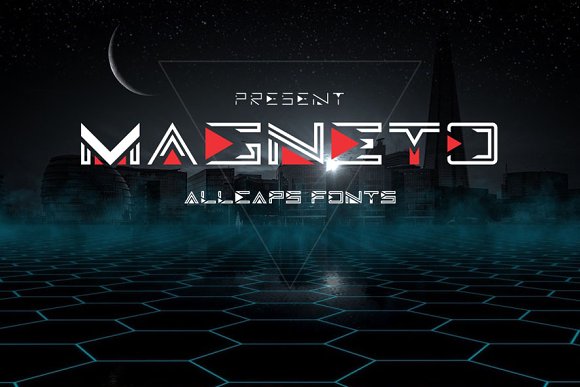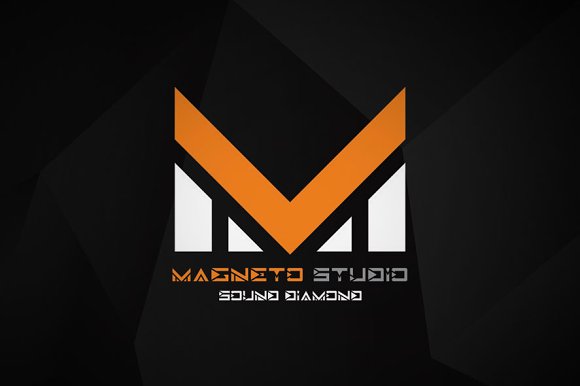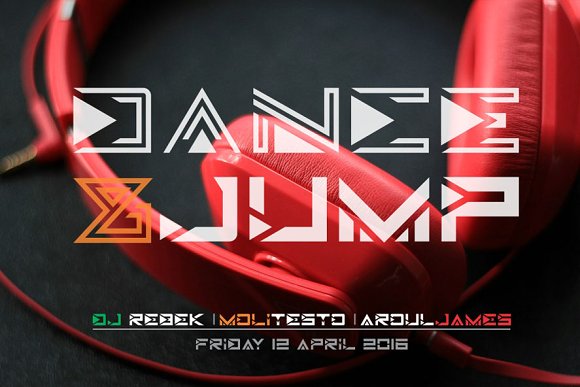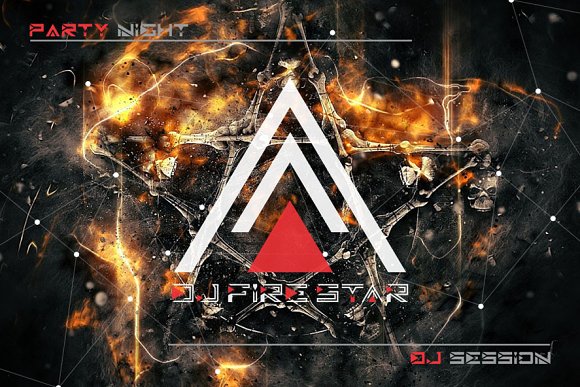
Magneto Font
About the Magneto Font
Make a bold statement with Magneto Font, a powerful and memorable font. Magneto is a stylish futuristic font that comes in 4 stunning variations:
Magneto Regular
Magneto Line
Magneto Special Line
Magneto Thin
Magneto excels in headline use, particularly for science fiction, technology, or gaming projects. Its bold, futuristic aesthetic also makes it ideal for branding applications requiring a strong, modern feel, such as logos or short taglines. Avoid using Magneto for body text or long paragraphs; its strong character reduces readability in extended formats. UI applications should also be approached cautiously.
The sharp geometry of Magneto pairs well with clean sans-serif fonts like Open Sans or Lato for a balanced contrast. For a more playful feel, consider pairing it with a rounded sans-serif such as Montserrat. A touch of elegance can be achieved by pairing Magneto with a classic serif like Garamond, providing a sophisticated counterpoint to the font’s futuristic energy.
Magneto’s overall personality is bold, modern, and assertive. It projects a sense of power and innovation, making it a strong choice for brands seeking to communicate these qualities.
Magneto Font Usage Examples
Magneto Font Example